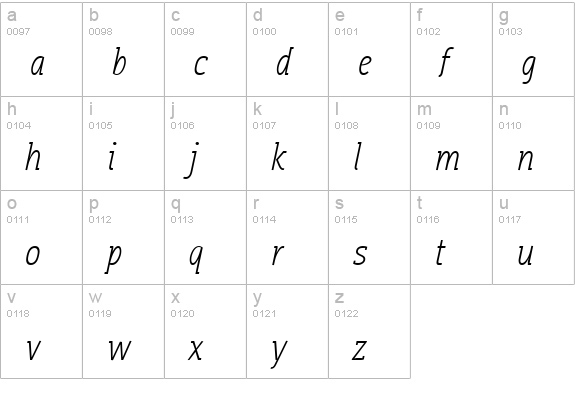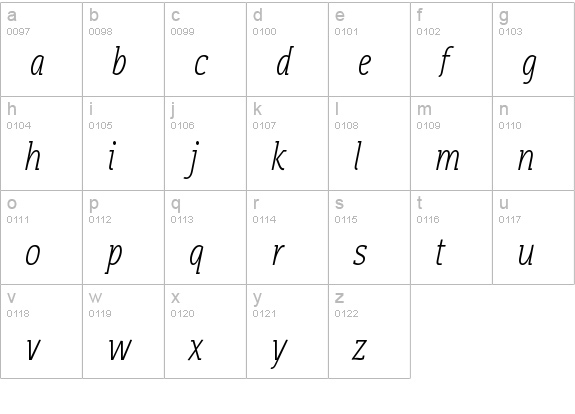
Aaux OfficeLight Italic Font Details
Aaux OfficeLight Italic is a distinctive, italic variant in the Aaux typeface family \xE2\x80\x94 well suited to design and typography projects.
The Aaux OfficeLight Italic font is a sleek and modern typeface perfect for adding a touch of sophistication to your projects. With its elegant slanted design, this font exudes professionalism and style. The light weight of the font makes it ideal for use in office documents, presentations, and branding materials. Best of all, the Aaux OfficeLight Italic font is available for free download at FontsMarket.com. Whether you're a designer looking to elevate your work or a business professional in need of a polished font for your communications, this versatile typeface is sure to impress. Download it today and add a touch of elegance to your projects effortlessly.